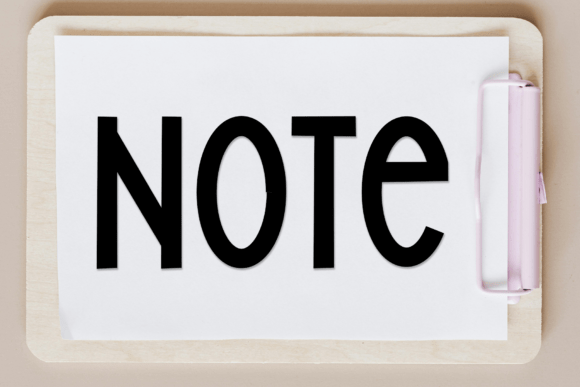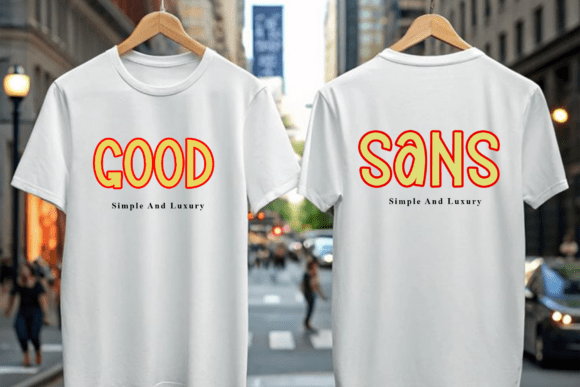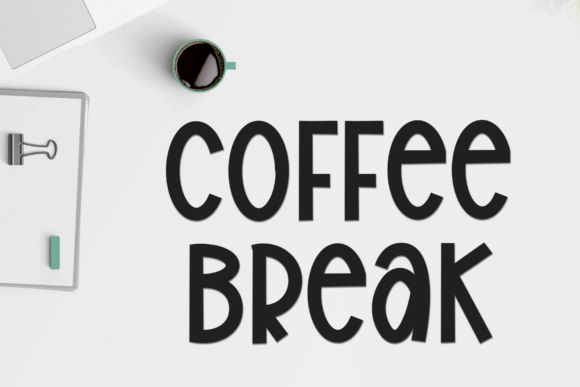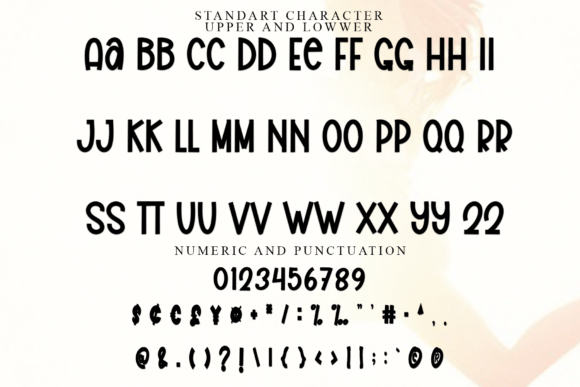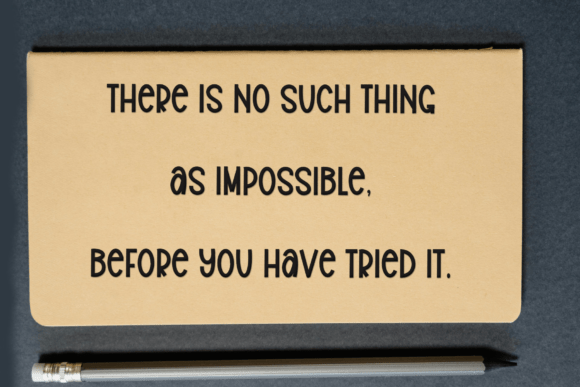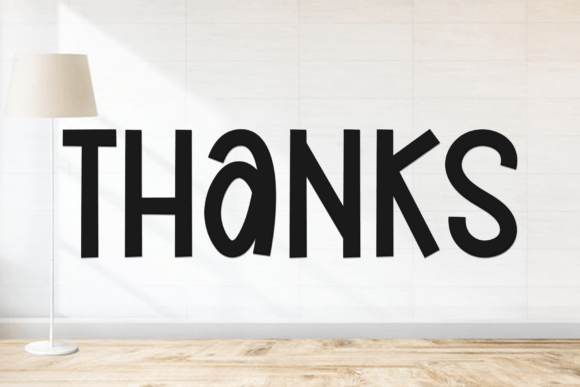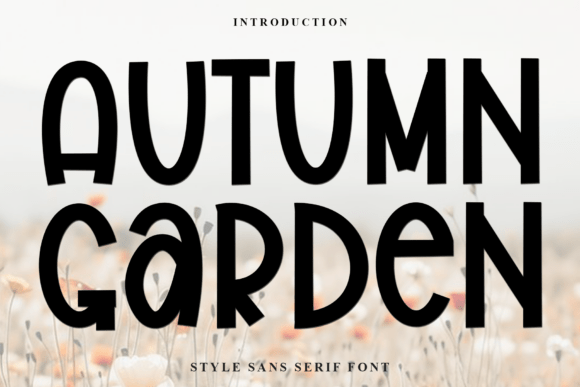
The Perfect Autumnal Touch: Discovering the Autumn Garden Font
I’ll never forget the time I was working on a fall-themed project for a client, and I just couldn’t find the right font to capture the cozy, warm feeling of the season. The client was specific about wanting something that felt both elegant and playful, but not too over-the-top. I scoured the internet, tried out dozens of fonts, and still, nothing seemed quite right. That was until I stumbled upon the Autumn Garden font. It was like the design gods had finally listened to my prayers! ✨
A Beautiful and Eye-Catching Font
The Autumn Garden font is a stunning addition to any design project, with its soft, unique touch that’s sure to make your work stand out. Its distinctive strokes give it a special character, making it both meaningful and versatile for future use. Whether you’re working on a design project, craft, or other creative work, this font is perfect for adding a touch of autumnal charm.
What I Love About Autumn Garden
• ✨ Unique and eye-catching design: The Autumn Garden font has a distinctive style that’s sure to grab attention.
• 🌿 Natural and earthy feel: The font’s natural style makes it perfect for designs that require an organic, earthy feel.
• 📚 Wide range of characters: The Autumn Garden font comes with a variety of characters, making it suitable for a wide range of creative projects.
While the Autumn Garden font is an excellent choice for many design projects, there are a few things to keep in mind:
• 🤔 Limited availability of certain characters: Some users have reported that certain characters, such as ligatures, are not readily available.
• ⚠️ Occasional kerning issues: As with any font, some users may experience kerning issues, particularly when using the font at smaller sizes.
The Story Behind Autumn Garden
The Autumn Garden font was designed by a talented typographer who wanted to capture the essence of the fall season in a beautiful, unique font. Inspired by the changing leaves, cozy warmth, and natural beauty of the season, this font is perfect for designers who want to add a touch of autumnal charm to their work.
What is the Autumn Garden font? The Autumn Garden font is a beautiful, unique font designed with a soft, natural touch.